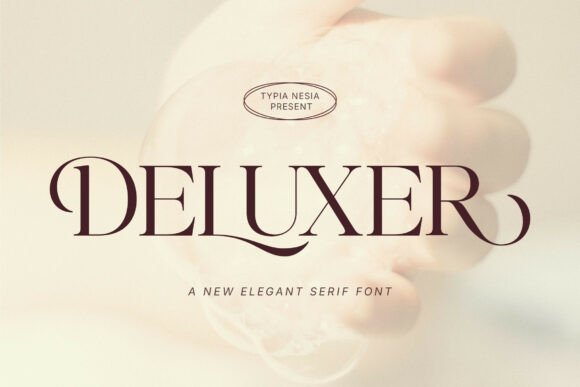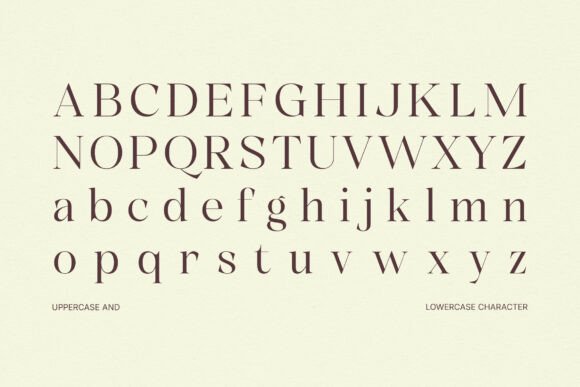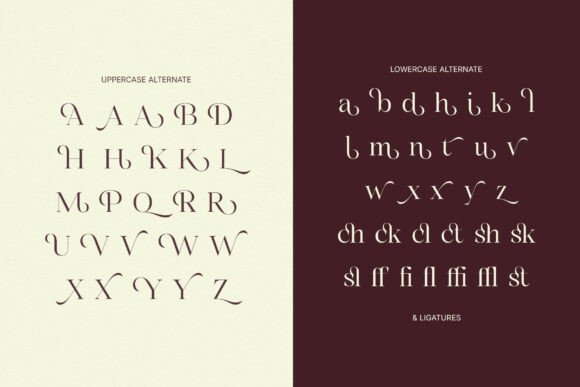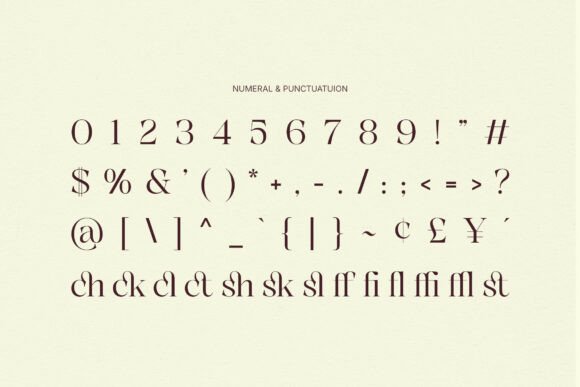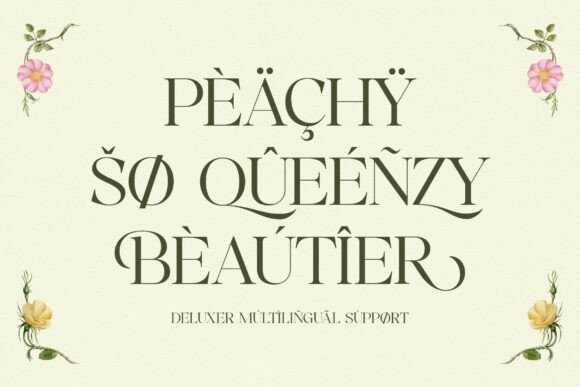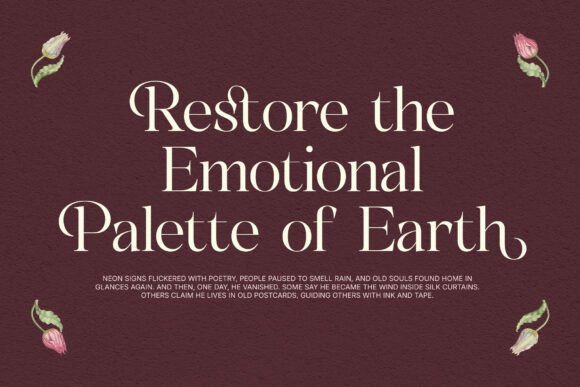
Introducing Deluxer Font: Elevate Your Designs with Luxury and Refinement
In the world of typography, a font can make or break the aesthetic of a design. For those seeking to infuse their projects with a sense of luxury and sophistication, Deluxer Font is an exceptional choice. This elegant modern serif font is specifically designed to exude refinement and high-end quality, making it perfect for a variety of applications, from high-fashion branding to premium packaging.
The Essence of Deluxer Font
Deluxer is characterized by its striking high contrast letterforms and graceful curves, which give it a distinctive and luxurious feel. The font comes alive with a stunning array of luxury alternates and ligatures, offering designers exquisite typographic possibilities. This range of features allows for a high degree of customization, enabling designers to create unique and captivating text that stands out in any medium.
Applications of Deluxer Font
Deluxer Font is incredibly versatile, making it suitable for a wide range of design projects. Some of the key applications include:
- High-end Fashion Brands: Deluxer’s luxurious feel makes it an ideal choice for fashion brands looking to convey elegance and exclusivity.
- Beauty Products: For beauty and cosmetics companies aiming to project a sophisticated image, Deluxer offers a typographic solution that is both refined and captivating.
- Editorial Layouts: Add a touch of luxury to magazine layouts, editorials, and other publications with Deluxer’s elegant and high-contrast letterforms.
- Wedding Invitations: Make wedding invitations, cards, and other stationery feel truly special with Deluxer’s romantic and refined aesthetic.
- Posters and Logos: Create striking posters and logos that demand attention with Deluxer’s unique and luxurious typography.
- Advertising: Elevate advertising campaigns with a font that communicates luxury, quality, and exclusivity.
- Premium Packaging: For brands that require packaging to reflect their high-end status, Deluxer provides an elegant and sophisticated typographic solution.
Why Choose Deluxer Font?
Choosing Deluxer Font for your design project means selecting a typeface that can add an air of elegance and exclusivity. Its high contrast and luxurious features make every design feel truly distinguished. Here are a few reasons why Deluxer stands out:
- Elegant Design: Deluxer’s modern serif design, complete with high contrast letterforms and graceful curves, ensures that your designs exude luxury.
- Versatility: With a range of luxury alternates and ligatures, Deluxer offers immense versatility for creative typography.
- High-End Aesthetic: Perfect for projects that require a sophisticated and refined look, Deluxer helps in creating visually stunning designs.
Tips for Using Deluxer Font Effectively
To maximize the impact of Deluxer Font in your designs, consider the following tips:
- Experiment with Alternates and Ligatures: Take full advantage of Deluxer’s luxury features to create unique and engaging text.
- Combine with Imagery: Pair Deluxer with high-quality imagery that complements its luxurious feel, enhancing the overall aesthetic of your design.
- Consider Hierarchy: Use different weights or sizes of Deluxer to create a clear typographic hierarchy, guiding the viewer’s eye through your design.
Deluxer Font is a powerful tool for designers looking to infuse their projects with a sense of luxury and refinement. Its elegant design, versatility, and high-end aesthetic make it an ideal choice for a wide range of applications. Whether you’re working on a high-fashion brand, a beauty product, or a premium packaging project, Deluxer offers the typographic excellence needed to create truly distinguished designs. Elevate your typography and make a lasting impression with Deluxer Font.